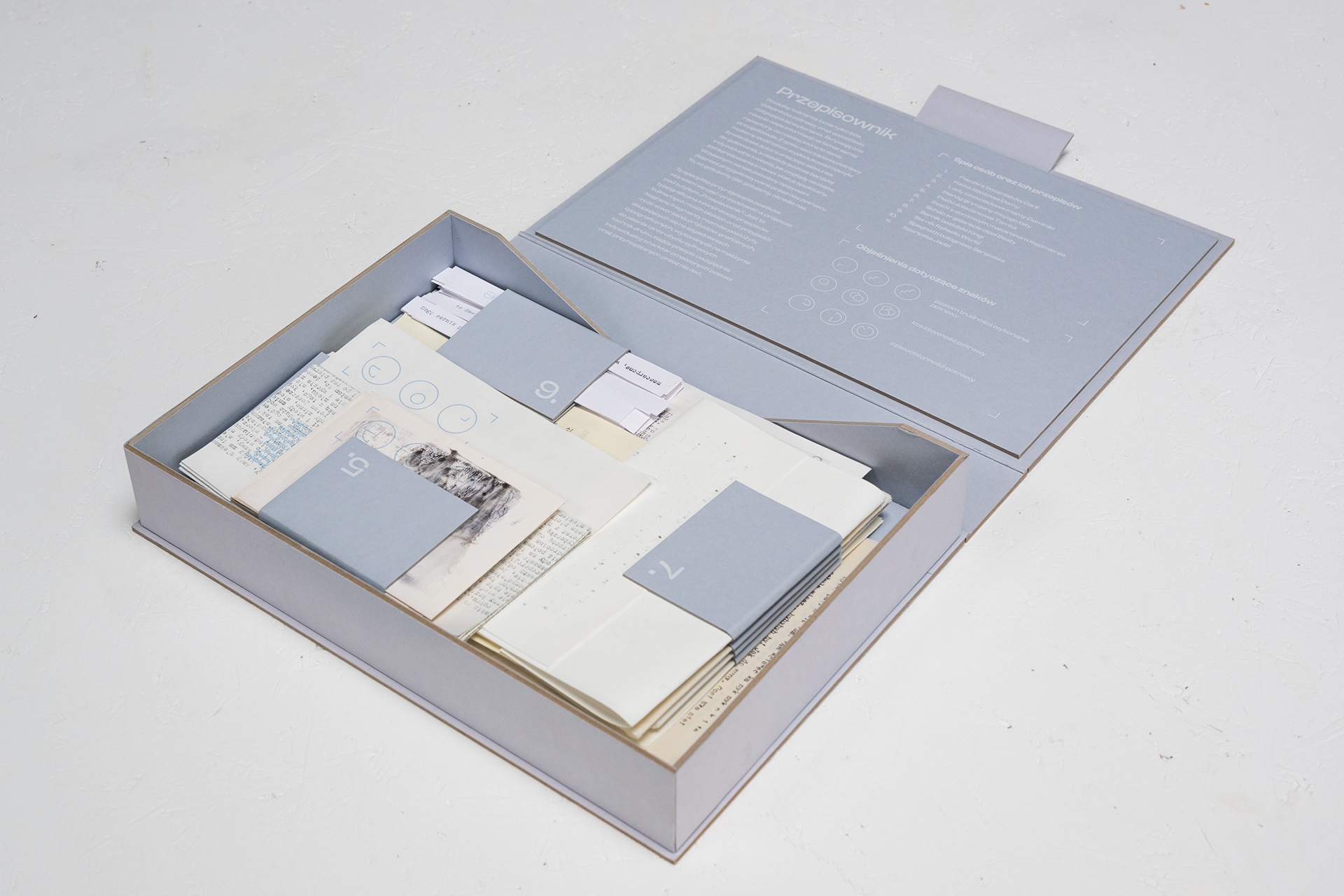
title: Przepisownik/Rec.ipe Archives
description: A set of culinary recipes designed on a traditional typewriter based on previously recorded conversations. Each of eleven items is a typographic interpretation of a recipe itself and its author's characteristic traits. The shape, the size and the choice of material is dictated by my personal impression of a certain person. All recipes are placed in a special box, tagged with cooking direction signs and have a clip-on which helps to separate each item. The presentation of my work brings out the archiving character of the topic and shows different approach to analog techniques.